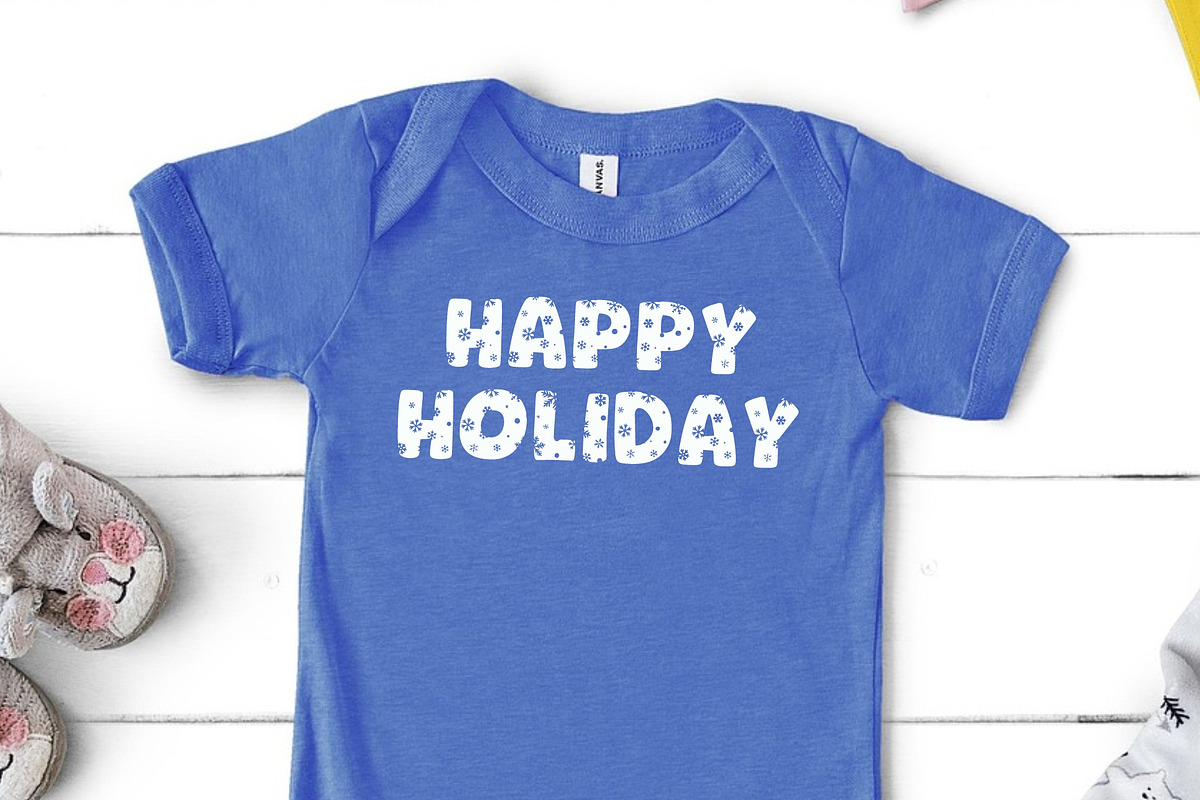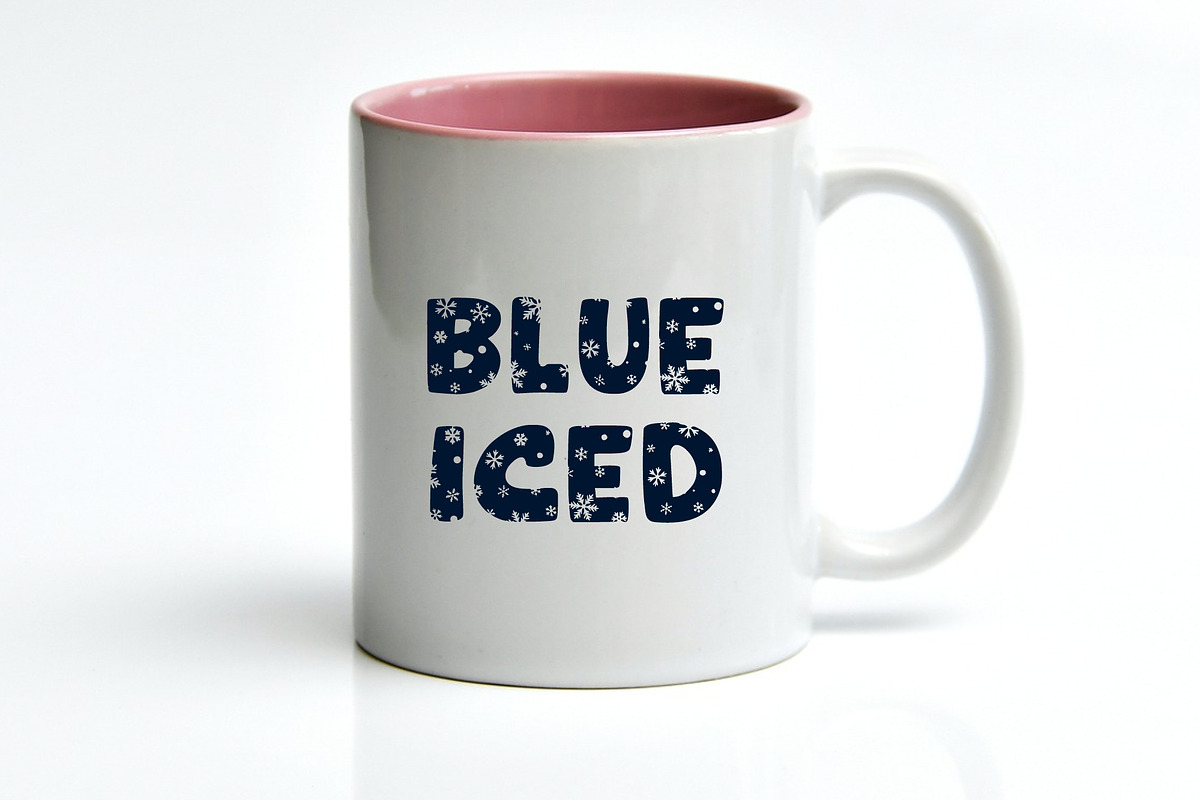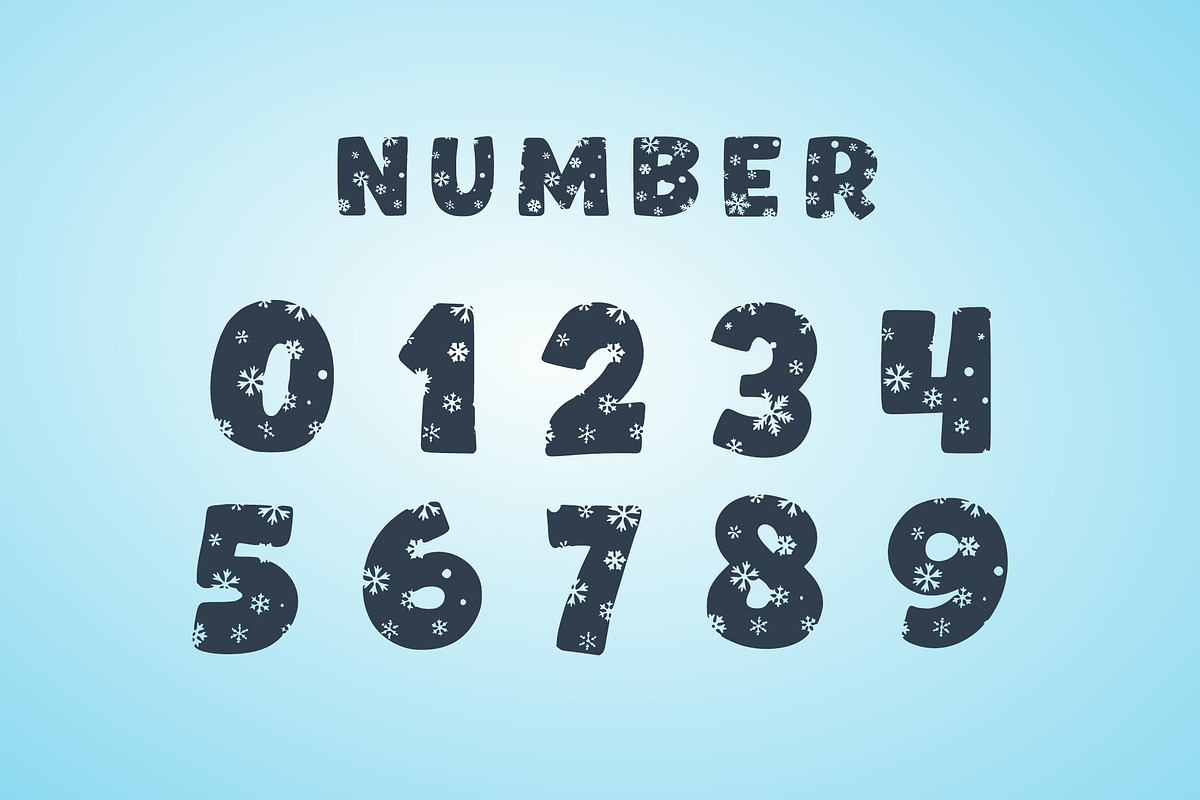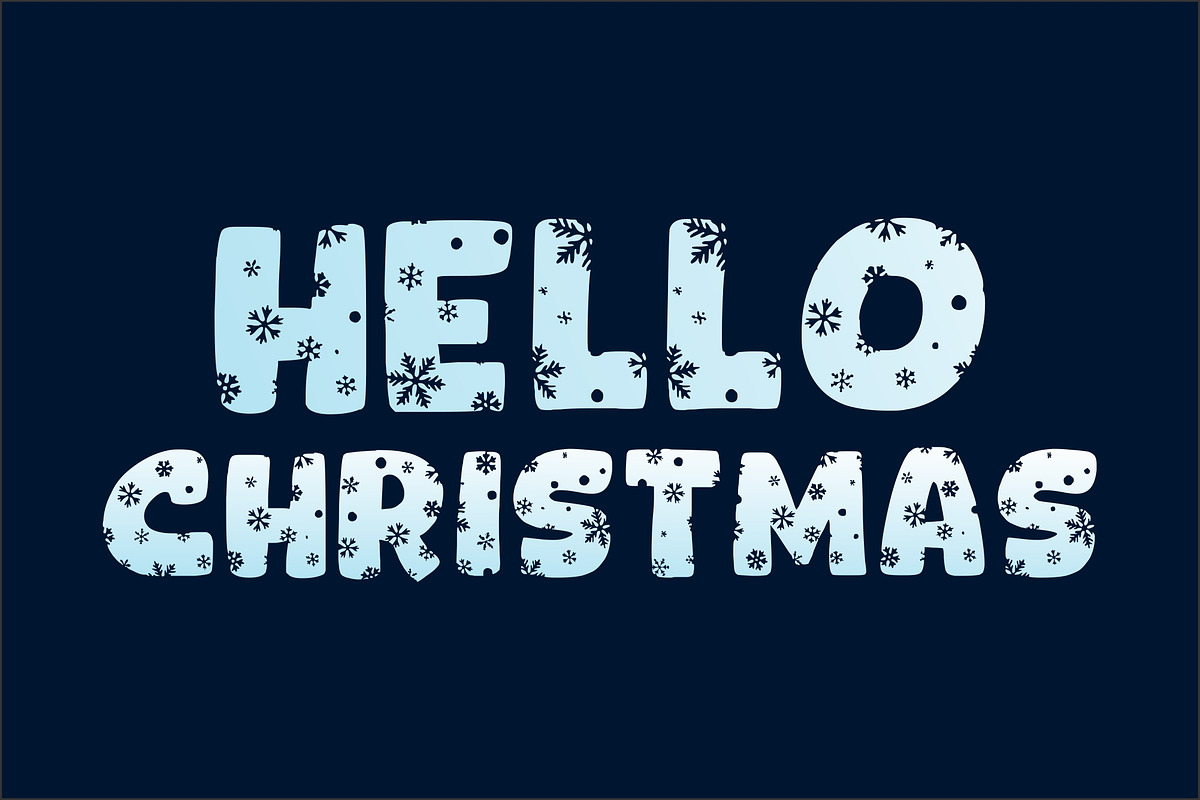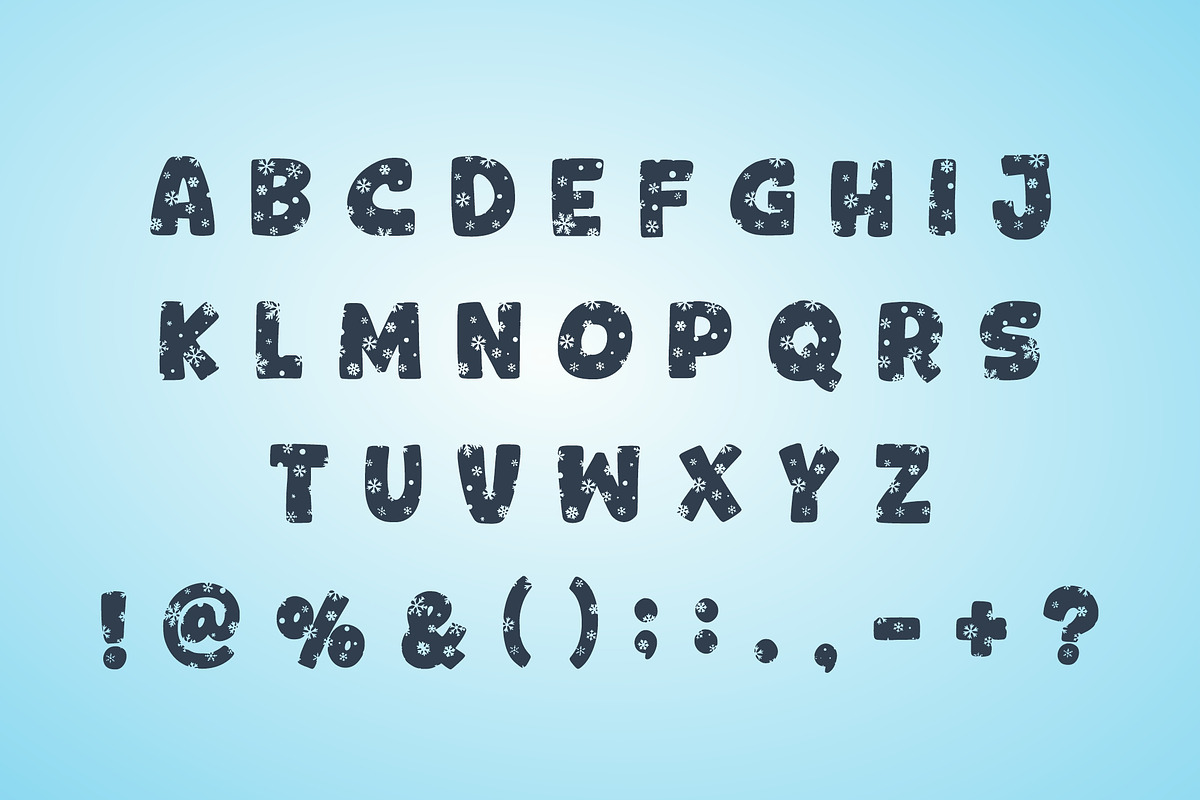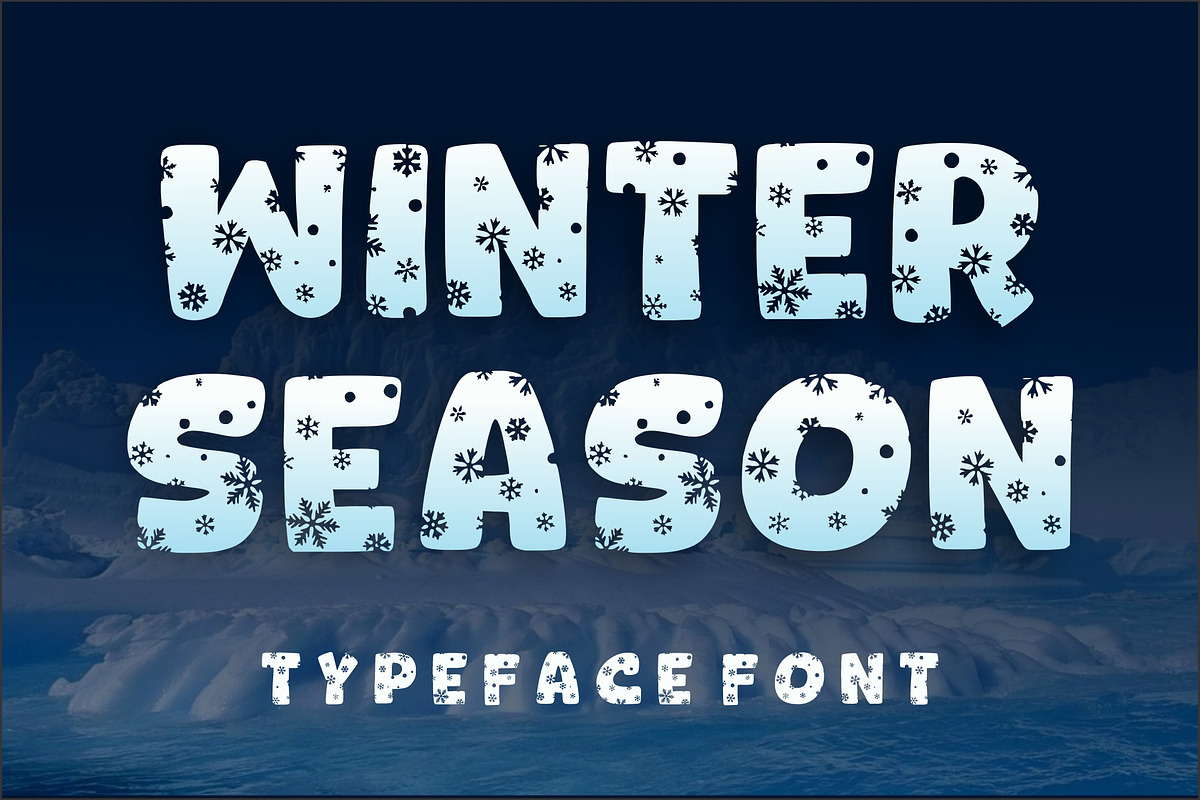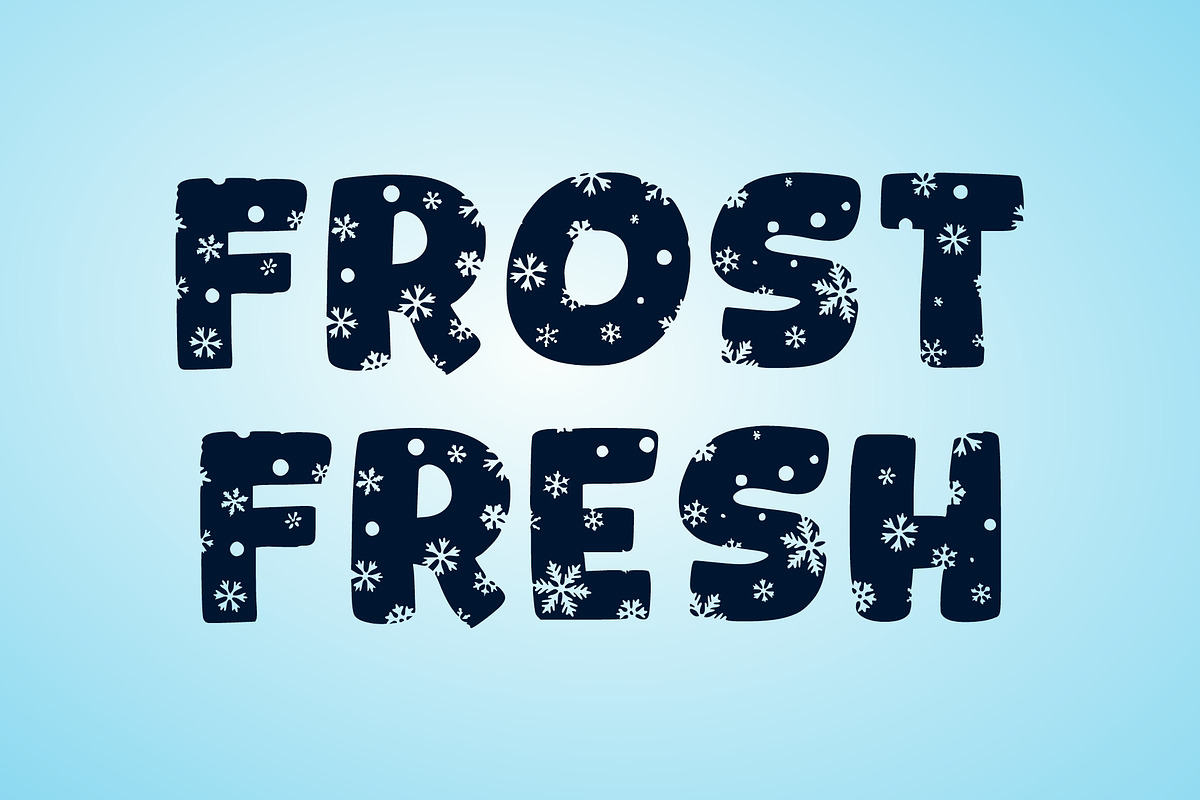
Winter Season
Winter Season is a playful and bold display font that captures the frosty magic of winter. With chunky, rounded letterforms decorated by delicate snowflake patterns, this typeface brings a festive and cheerful vibe to any design.
Its eye-catching style makes it perfect for holiday cards, seasonal posters, winter-themed branding, and fun packaging projects. The smooth balance of bold shapes and whimsical snowy details ensures your designs stand out with a cozy yet modern aesthetic.